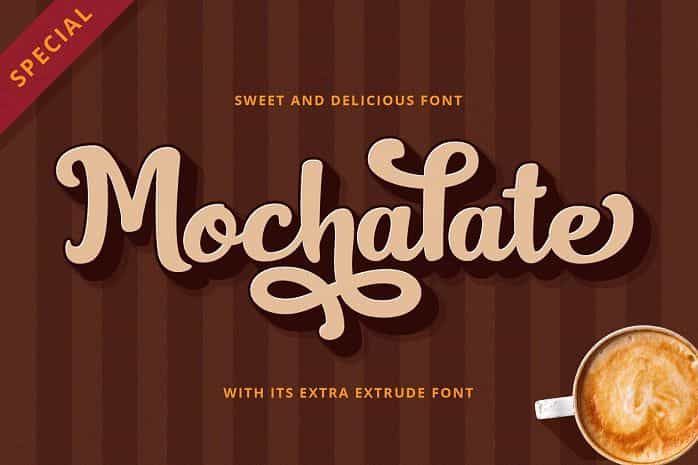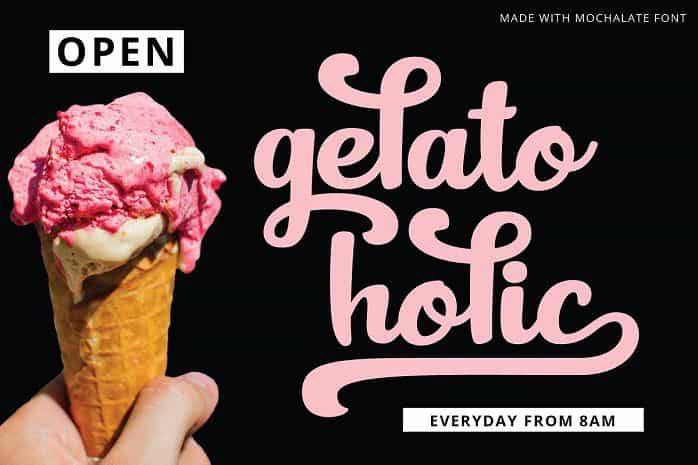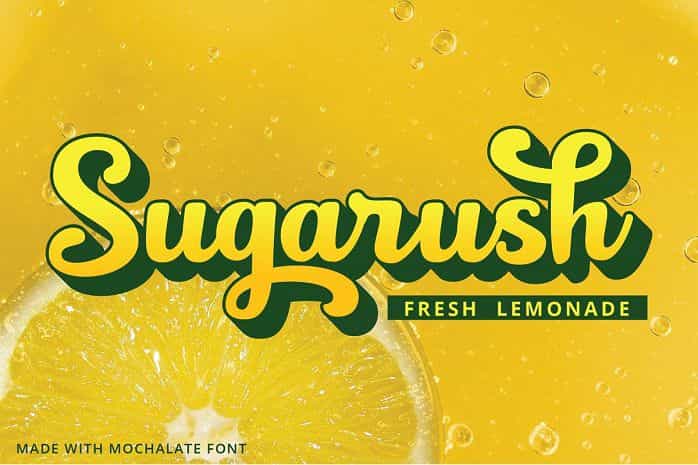
Introducing Mochalate Font. Mochalate is a daring, crispy and sweet. It plays with its exclusive extrude shadow version. It is as if it were a mochalatte, the perfect combination of hot chocolate and thick latte. It is as if a chocolate cake that has just been baked from the oven, the smell of it is so good. This typeface is perfect for any display purpose; be it package design, title, poster, headline and logo.